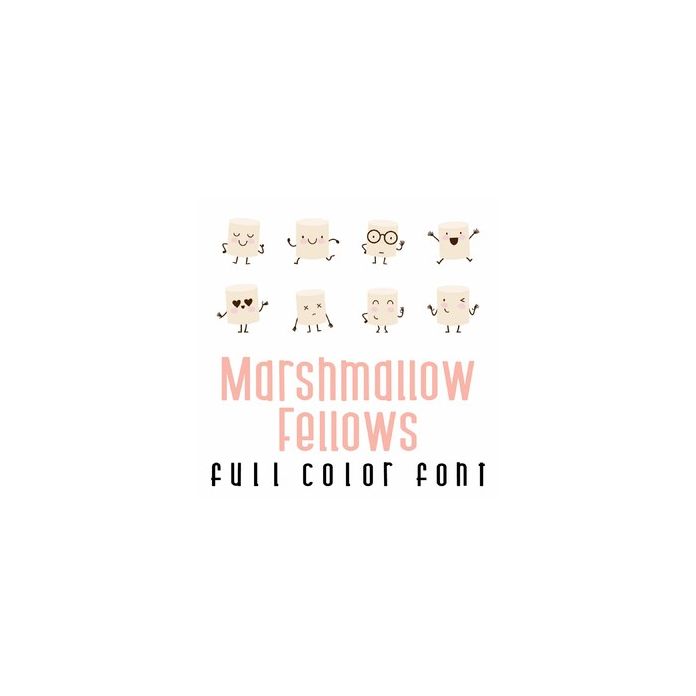
This adorable full-color doodlebat font features emoji style marshmallows Perfect for cards, crafts, gifts, decor, scrapbook pages, planner stickers, and more!